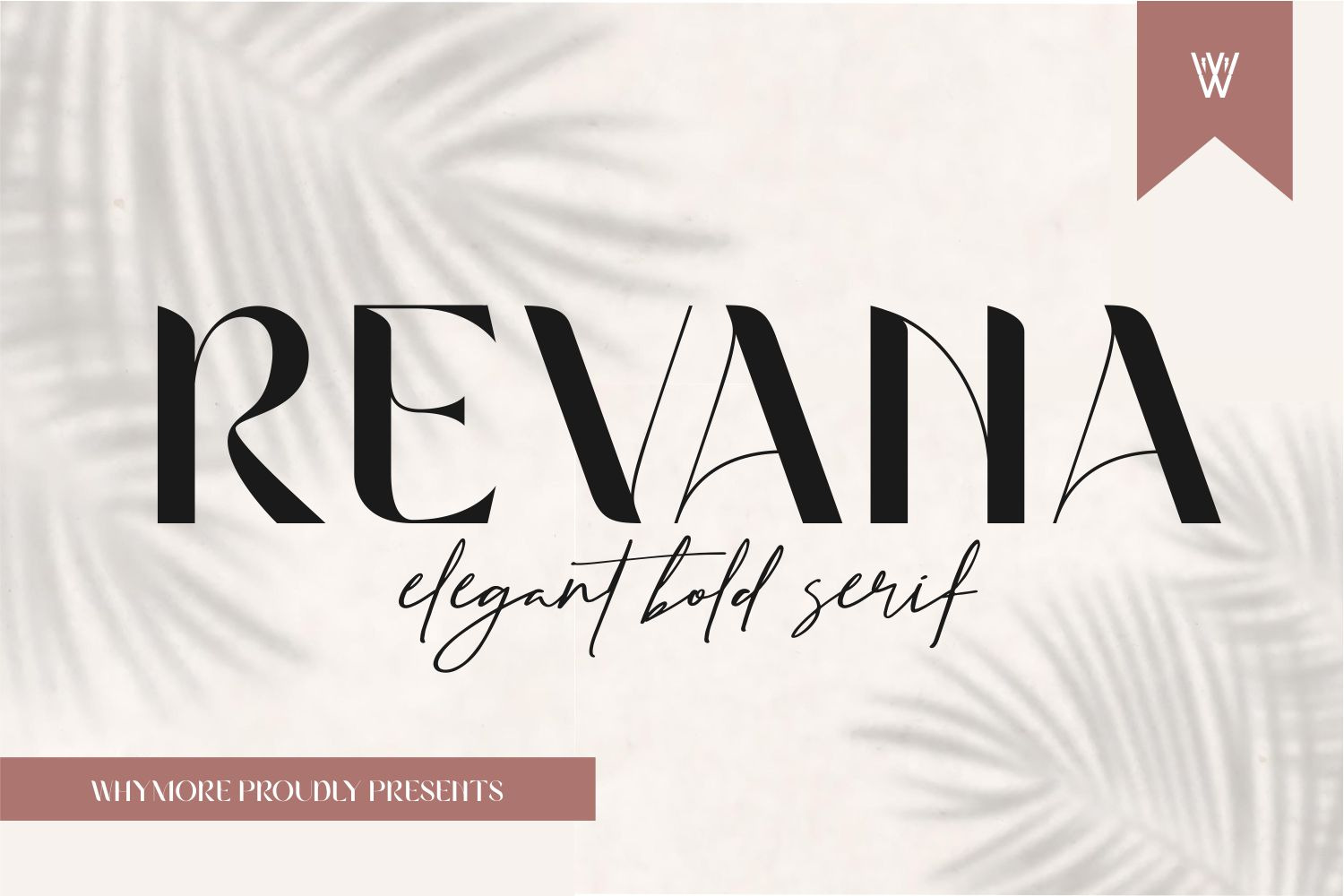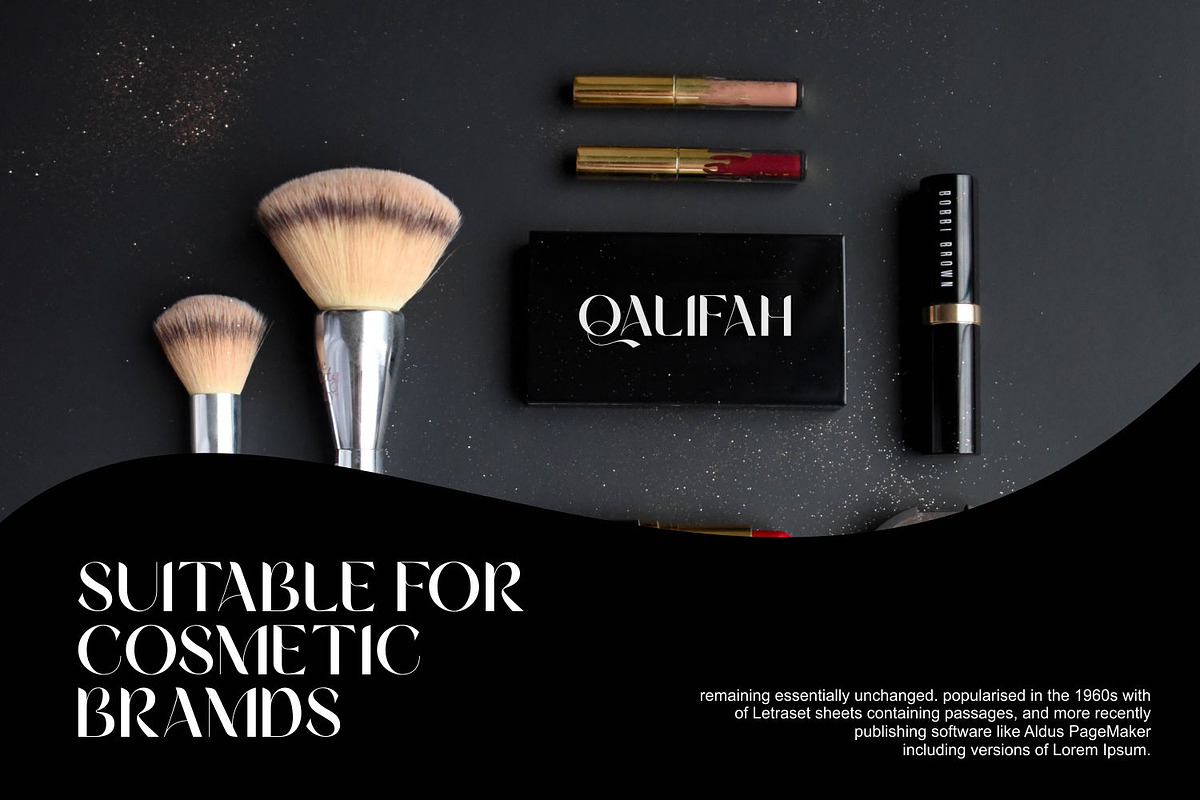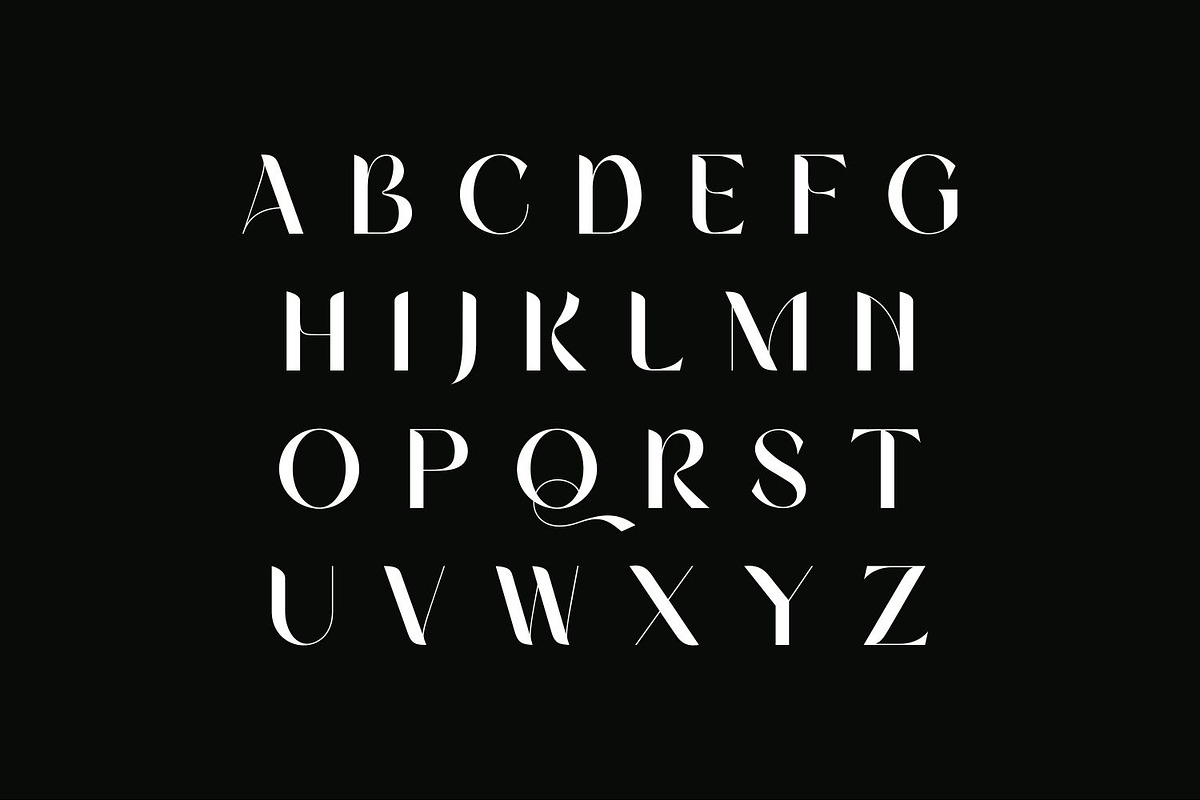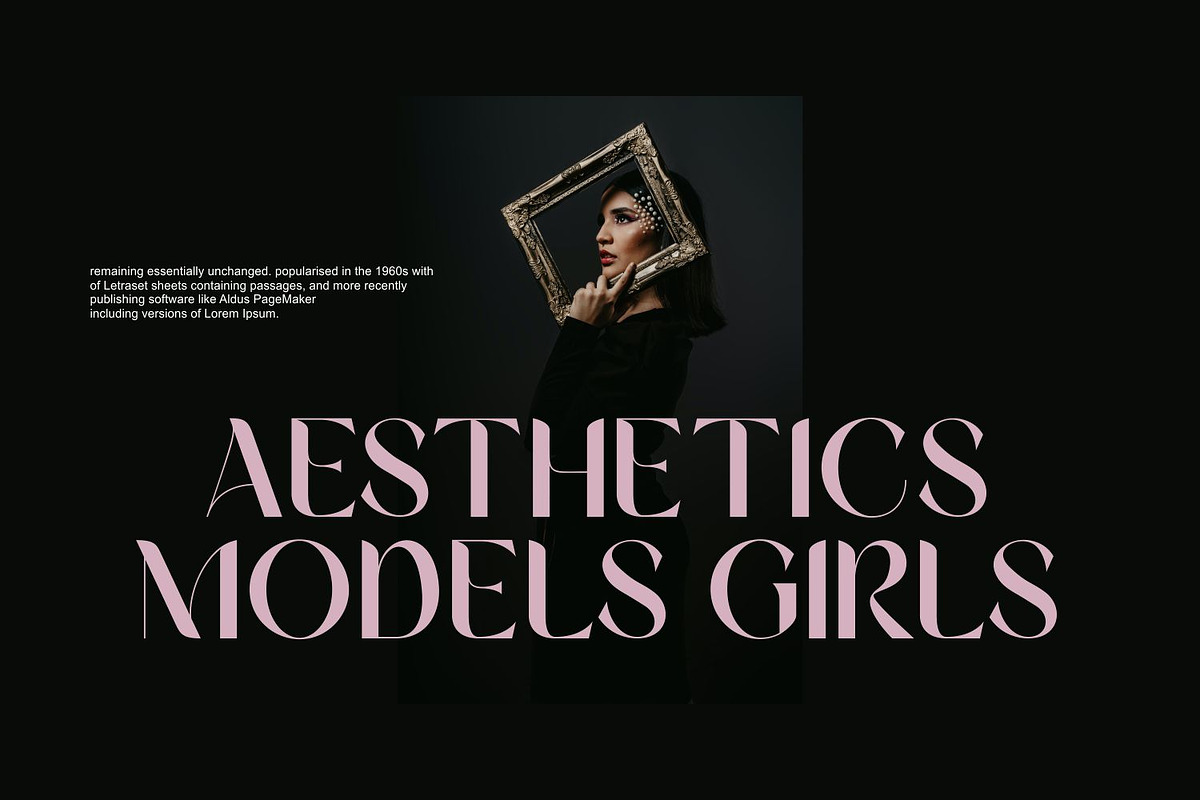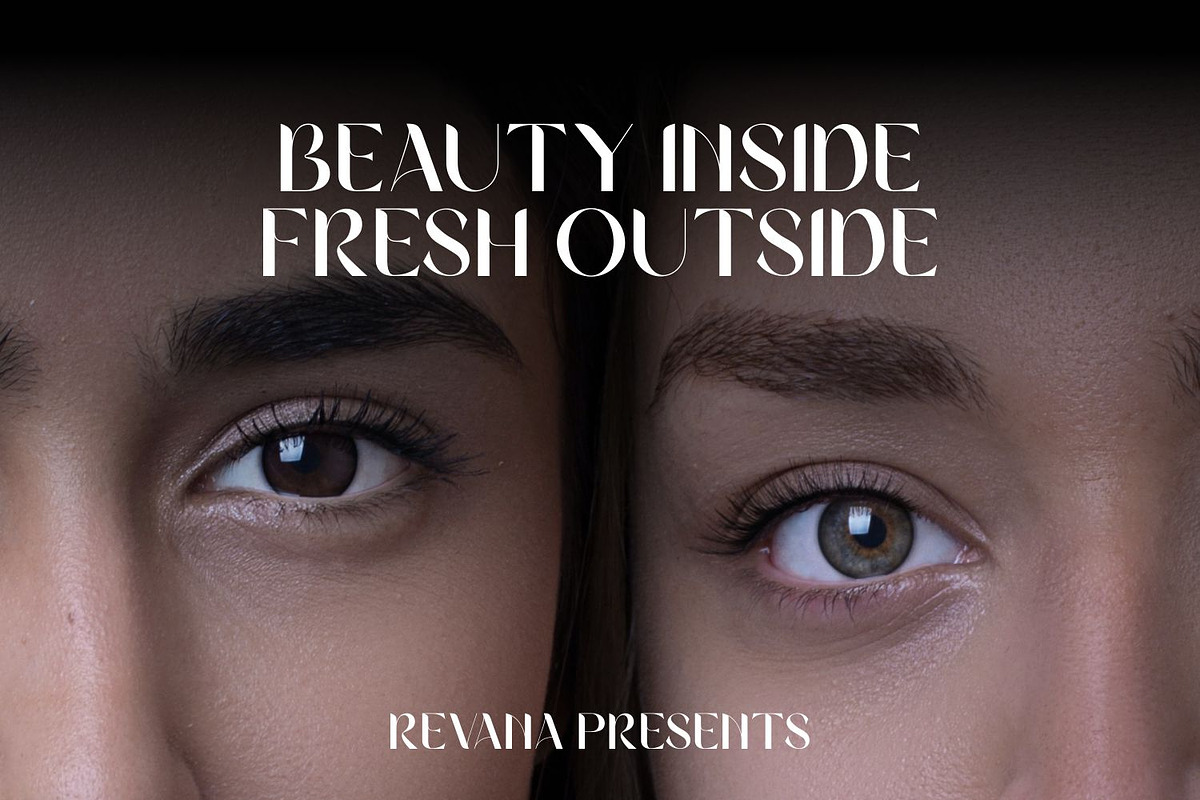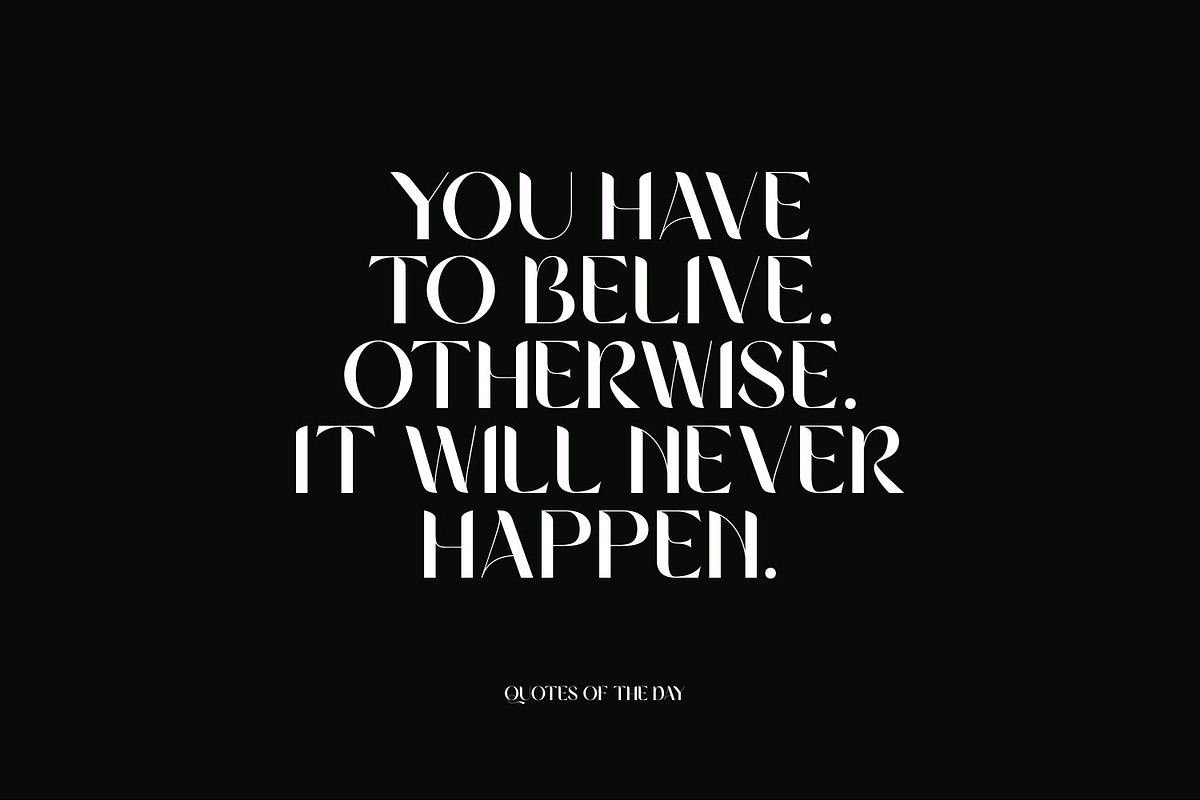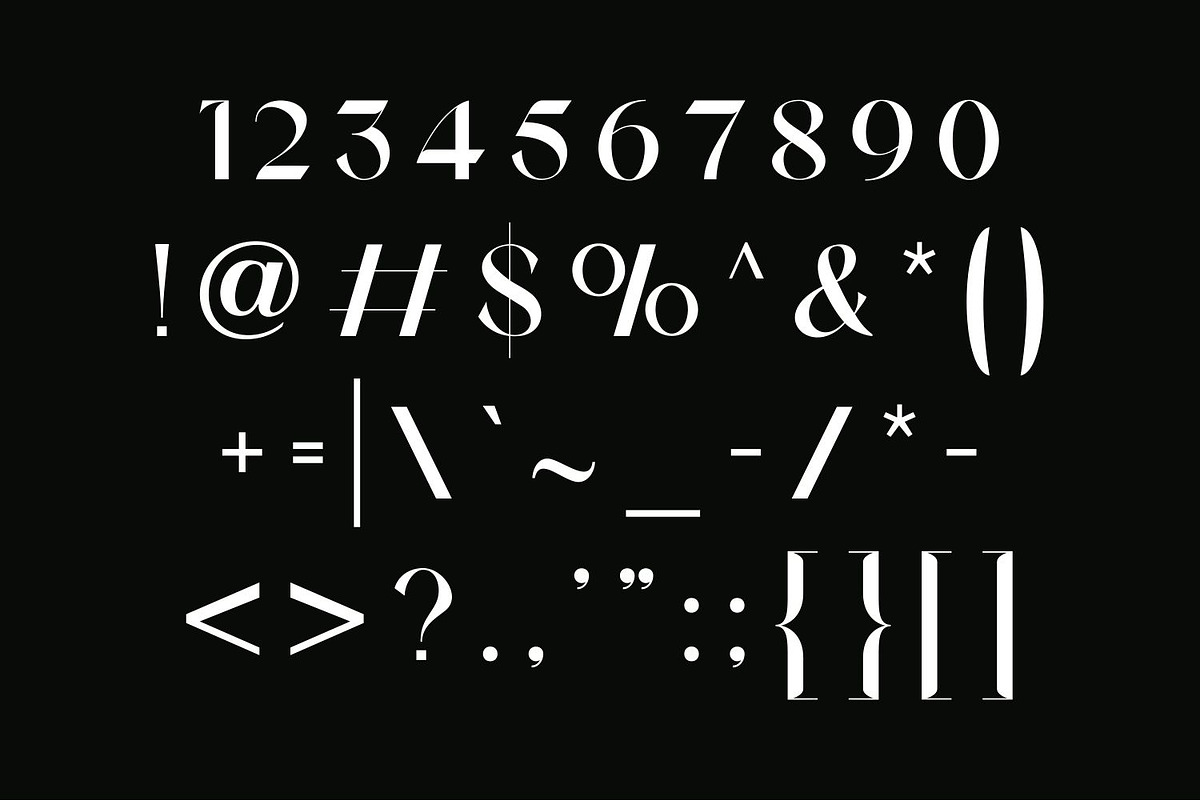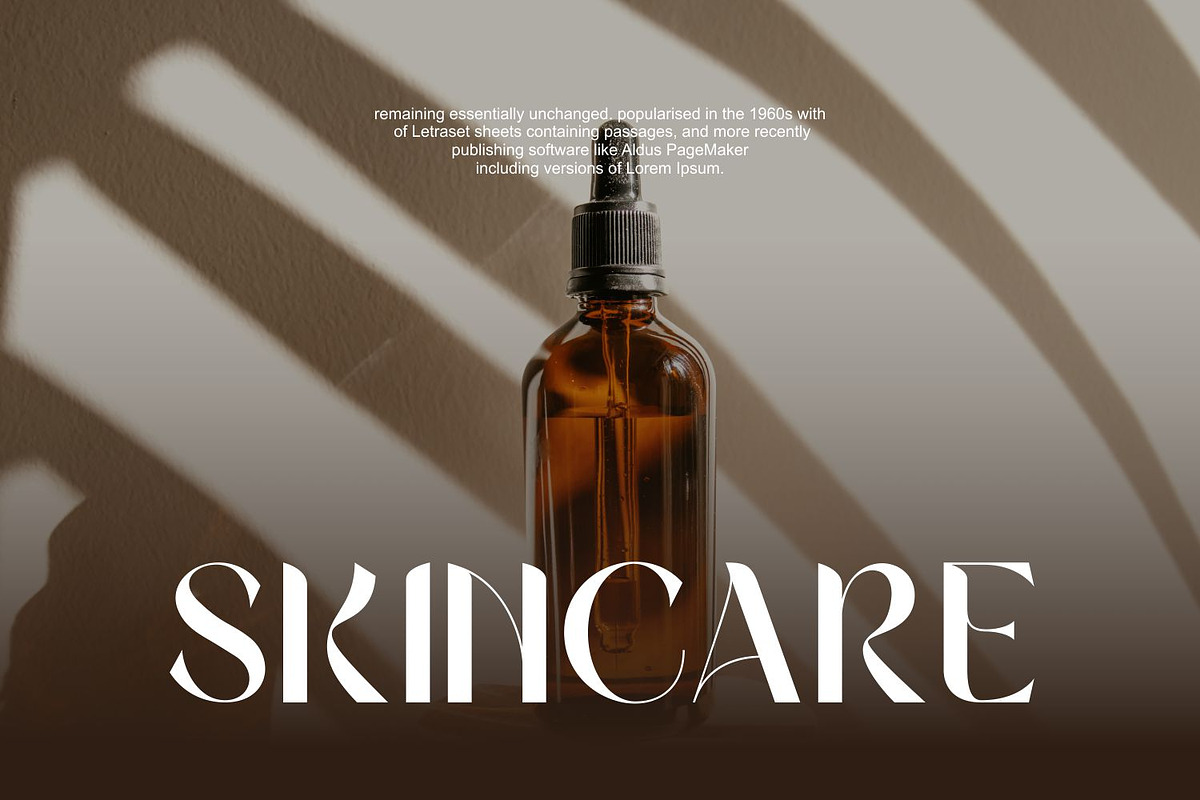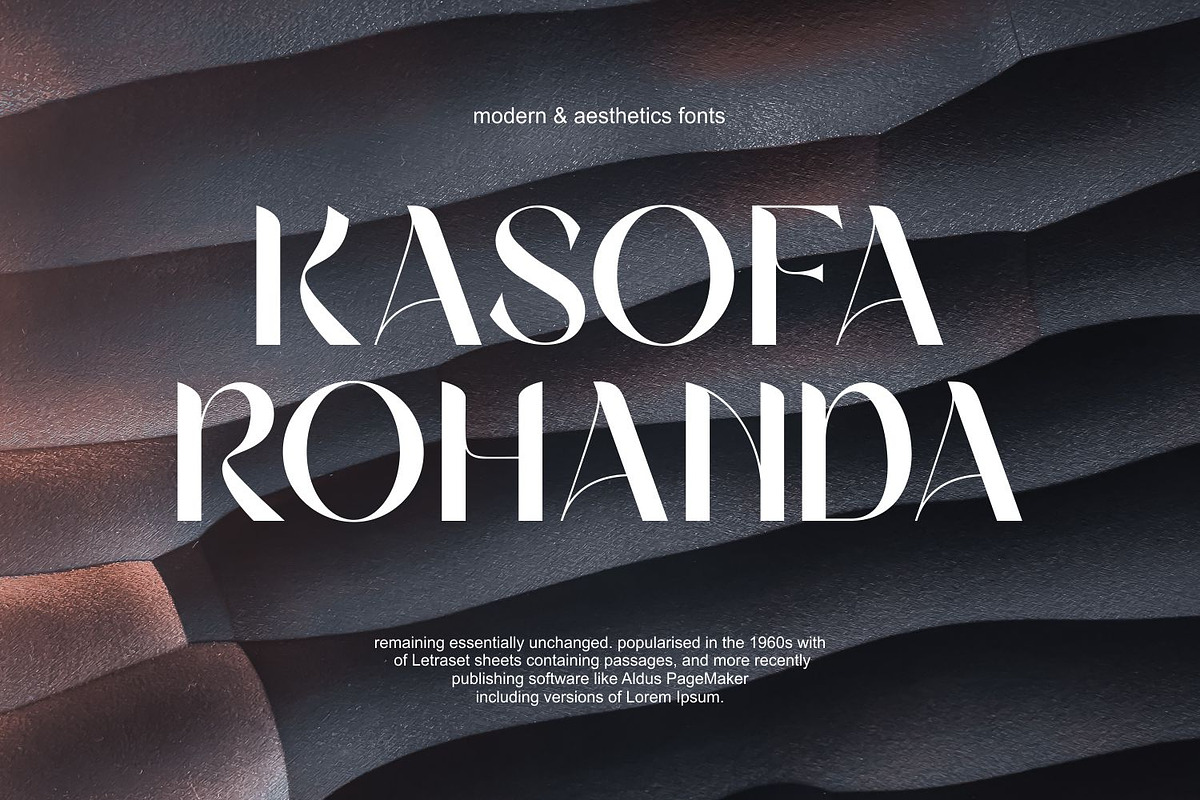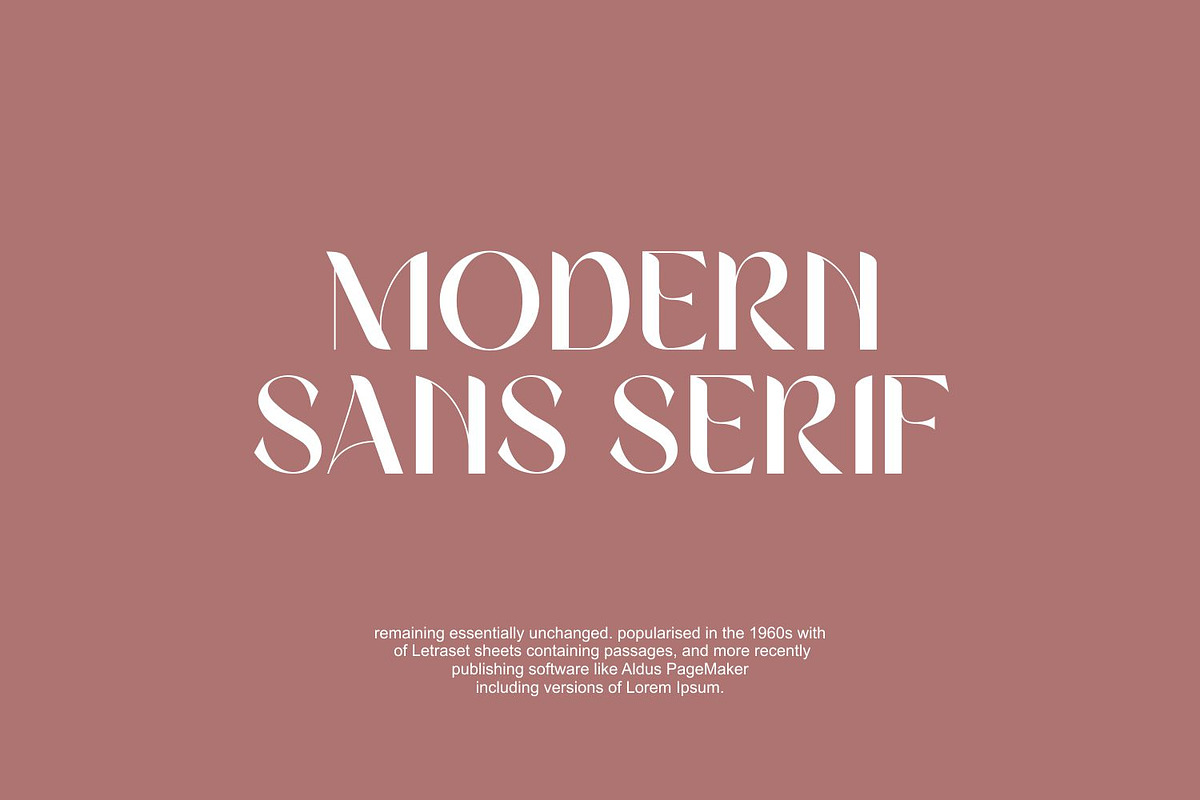
Revana Font | Beautifull Sans Serif
The Revana Font is a stunning sans-serif typeface that radiates elegance and modernity with its clean lines and balanced proportions. With its graceful curves and refined details, this font adds a touch of sophistication to any design project. Whether you’re creating branding materials, website headers, or editorial layouts, the Revana Font brings a sense of refined charm that captivates the viewer. Its versatility makes it suitable for a wide range of applications, ensuring your designs stand out with a touch of contemporary beauty.